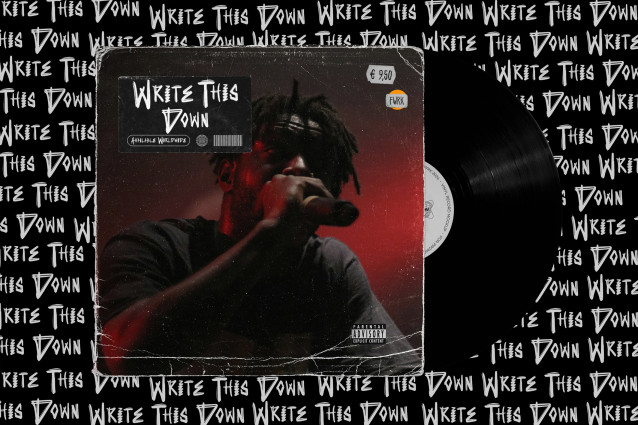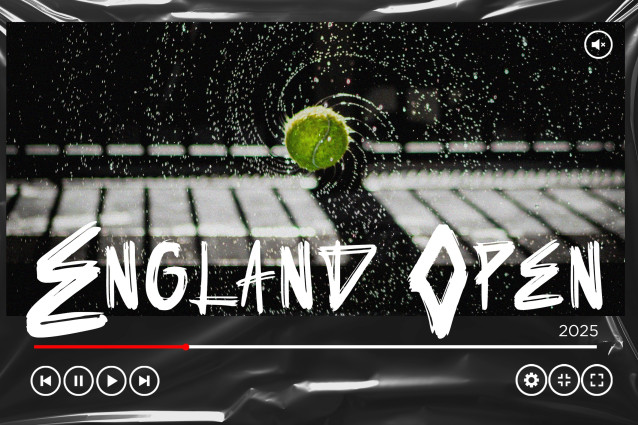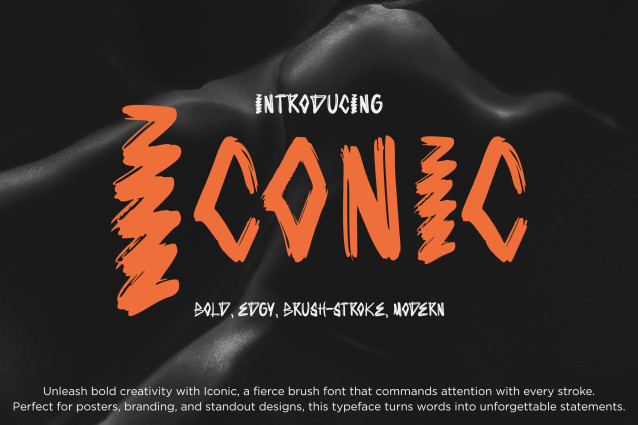
Iconic Brush Font
Iconic Brush Font is a bold and edgy brush font with striking modern attitude. Built with raw brush strokes and fierce energy, this typeface makes a powerful statement in logos, posters, merchandise, and digital content. Whether you’re crafting streetwear visuals, social media graphics, or album art, Iconic brings intensity and confidence to every design.